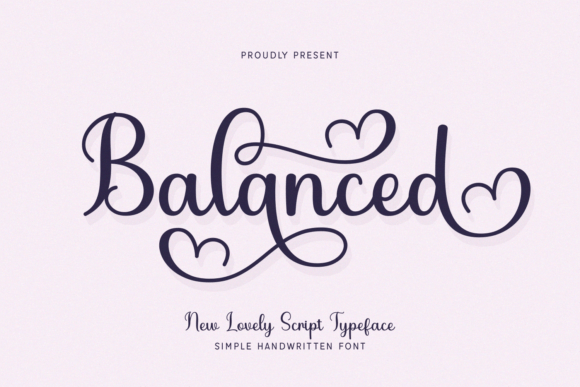
Introducing Balanced Font: The Perfect Blend of Elegance and Readability
In the world of typography, a well-designed font can make all the difference in the success of a project. Whether you’re a designer, crafter, or DIY enthusiast, finding the right font can be a daunting task. That’s where Balanced Font comes in – a beautiful script font that combines elegance and readability in perfect harmony.
The Characteristics of Balanced Font
Balanced Font is a stunning script font that boasts flowing letters, creating a warm and inviting feel. Its smooth curves and stylish design make it easy to use and visually appealing, perfect for a variety of projects. The font’s unique characteristics include:
- Elegant and Refined: Balanced Font exudes sophistication and poise, making it ideal for high-end projects, such as luxury brand designs, formal invitations, and wedding stationery.
- Readability: Despite its elegant nature, Balanced Font remains highly readable, even at smaller font sizes. This makes it perfect for body text, captions, and other applications where legibility is crucial.
- Flowing Letters: The font’s flowing letters create a sense of movement and fluidity, adding a touch of whimsy and personality to any project.
- Versatile: Balanced Font is incredibly versatile, suitable for a wide range of projects, from digital designs to print materials, such as invitations, greeting cards, and posters.
Balanced Font is a dream come true for designers and crafters looking to add a personal touch to their projects. Its unique blend of elegance and readability makes it perfect for:
- Invitations: Create beautiful, custom invitations for weddings, baby showers, and other special occasions.
- Greeting Cards: Design heartfelt greeting cards for birthdays, holidays, and other celebrations.
- Branding and Packaging: Use Balanced Font to create stunning brand identities, labels, and packaging materials that stand out from the crowd.
- Digital Designs: Incorporate Balanced Font into your digital designs, such as social media graphics, blog headers, and email newsletters.
Tips for Using Balanced Font
To get the most out of Balanced Font, follow these expert tips:
- Pair with Contrasting Fonts: Combine Balanced Font with contrasting fonts to create visual interest and hierarchy.
- Experiment with Colors: Try pairing Balanced Font with different colors to create unique and eye-catching designs.
- Play with Size and Scale: Experiment with different font sizes and scales to add depth and visual interest to your designs.
In conclusion, Balanced Font is a beautiful script font that offers the perfect blend of elegance and readability. Its flowing letters, smooth curves, and stylish design make it easy to use and visually appealing. Whether you’re a designer, crafter, or DIY enthusiast, Balanced Font is an excellent choice for any project where you want to add a personal touch. With its versatility, readability, and stunning aesthetics, Balanced Font is sure to become a favorite in your font collection.
Get Creative with Balanced Font